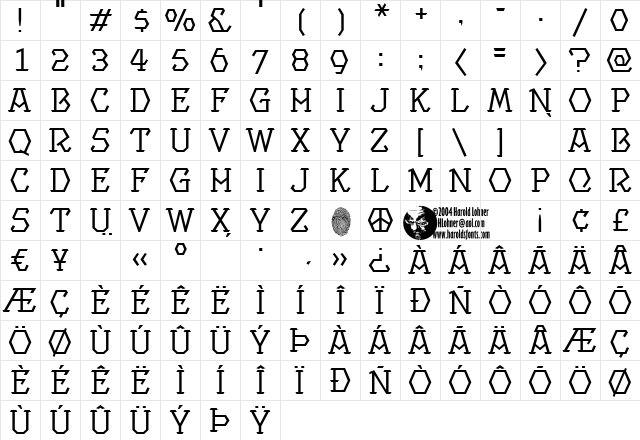
ProjectLight Regular
Design Context for ProjectLight Typeface
ProjectLight takes a measured approach to typography — its balanced proportions and neutral character make it a reliable workhorse for both digital and print work. Its slender proportions lend an understated elegance to any composition.